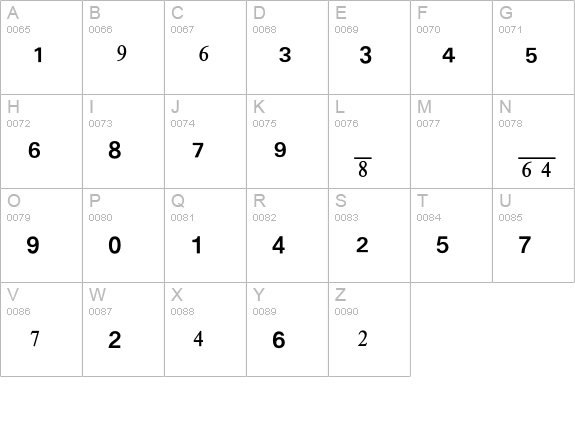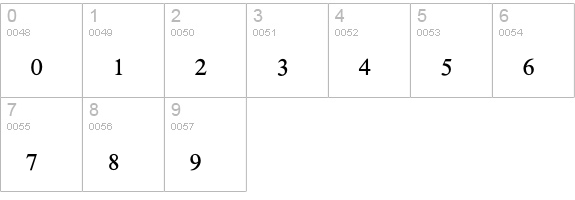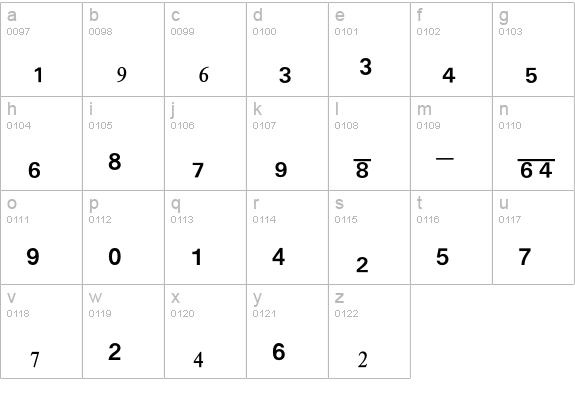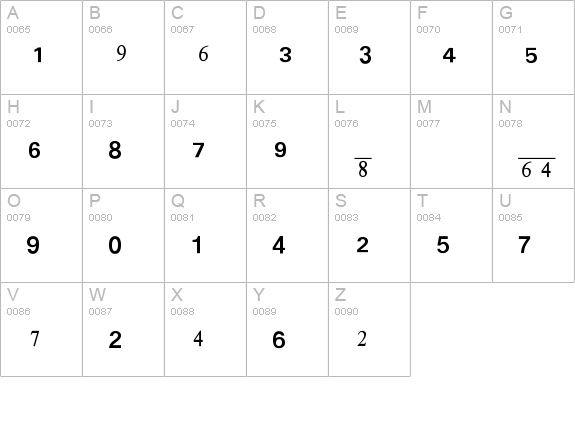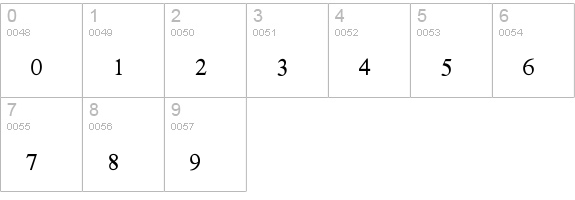
NumericsP09 Font Details
NumericsP09 is a modern and stylish font that combines sleek lines with a futuristic aesthetic. With its clean and geometric design, this font is perfect for creating a professional and contemporary look in your projects. The sharp edges and precise shapes of NumericsP09 make it stand out, adding a touch of sophistication to any design. This versatile font is ideal for a variety of uses, including branding, advertising, web design, and more. Whether you're looking to create sleek headlines or eye-catching logos, NumericsP09 is sure to make a statement. The best part? NumericsP09 is completely free to download at FontsMarket.com. This means you can add this unique font to your collection without breaking the bank. Don't miss out on the opportunity to enhance your designs with the modern and stylish NumericsP09 font today!